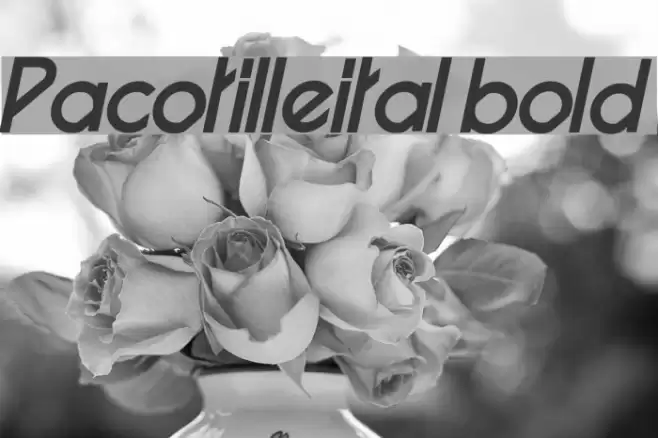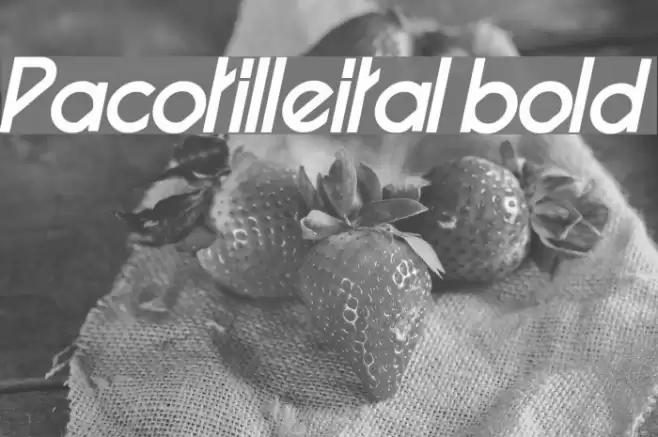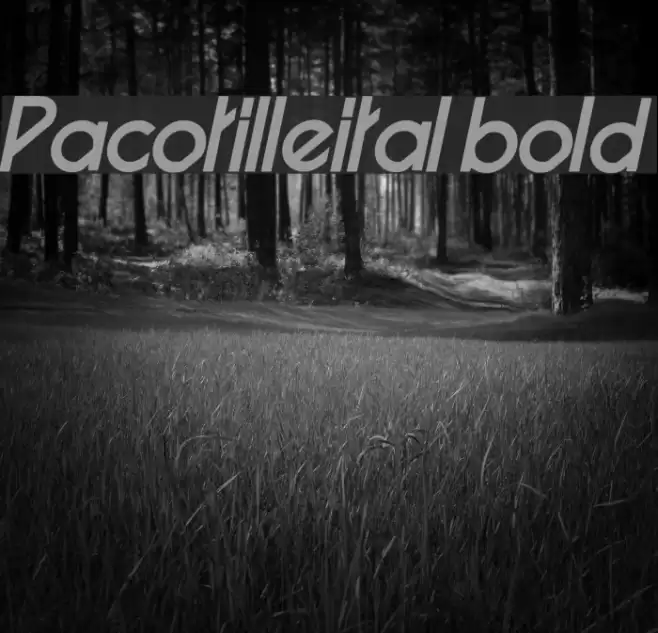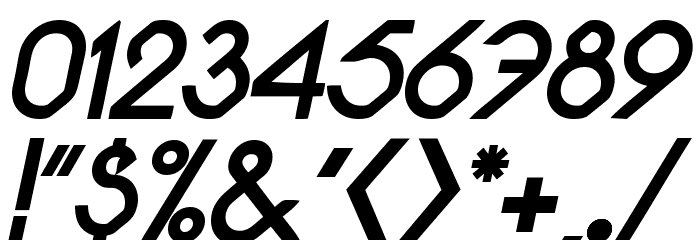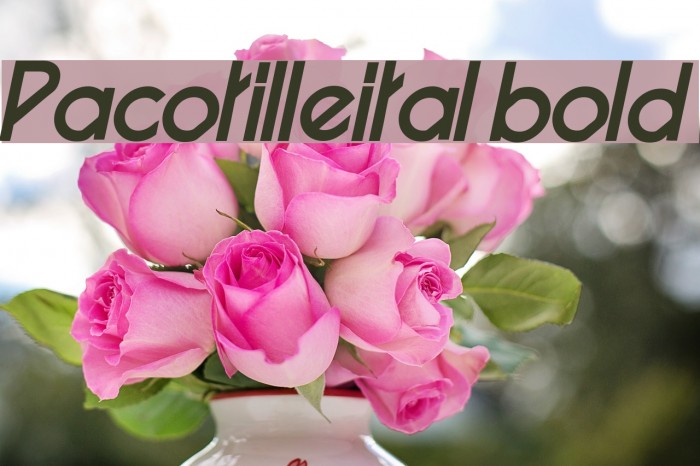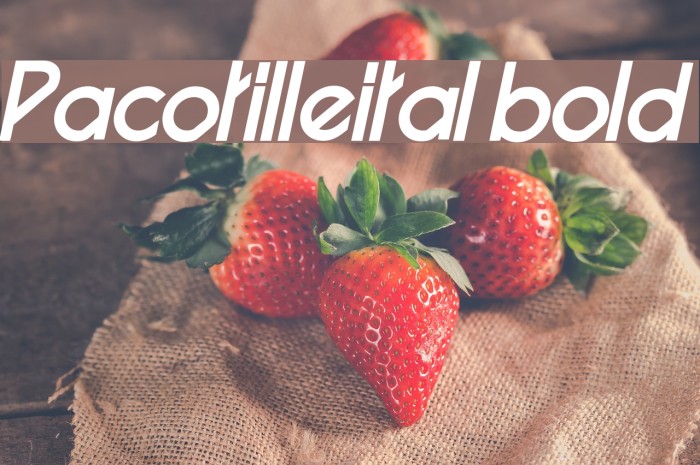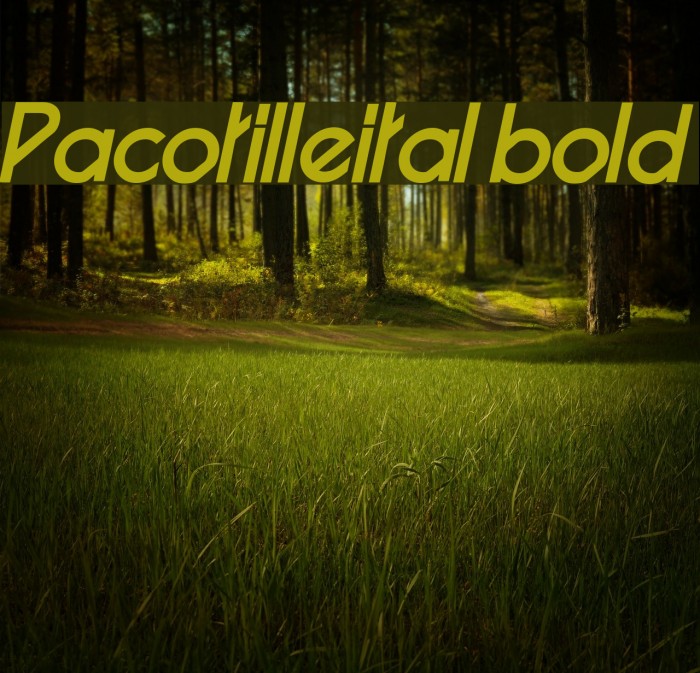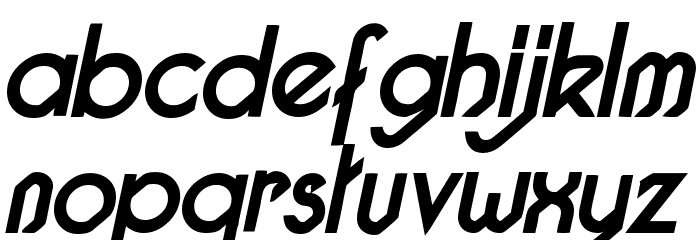
Pacotilleital bold Font
Pacotilleital bold Description
This font features a bold and italicized style with a distinctive, modern flair. The characters are designed with sharp angles and smooth curves, creating a dynamic and energetic appearance. The uppercase letters are particularly striking, with a forward-leaning slant that adds a sense of motion. The lowercase letters maintain this slant, ensuring consistency throughout the typeface. Numbers and special characters are equally bold and maintain the same stylistic elements, making them suitable for various design purposes. The overall look is both playful and assertive, making it ideal for eye-catching designs.
A bold, italicized font with sharp angles and a modern, dynamic style from Uncategorized fonts.
- Proposed Projects: Ideal for branding, advertising, posters, and any project requiring a bold, modern look.